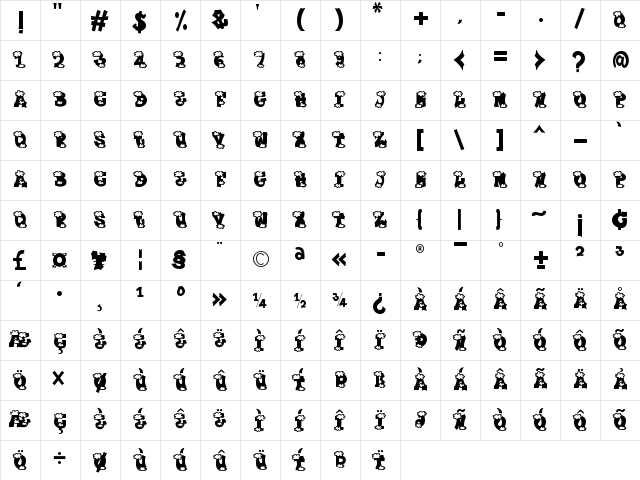
Plump Christmas is a composed and adaptable typeface that performs quietly and consistently across a wide range of design contexts.
Pro Tip: Use Plump Christmas in both headline and body roles to test its range before committing to a single application.